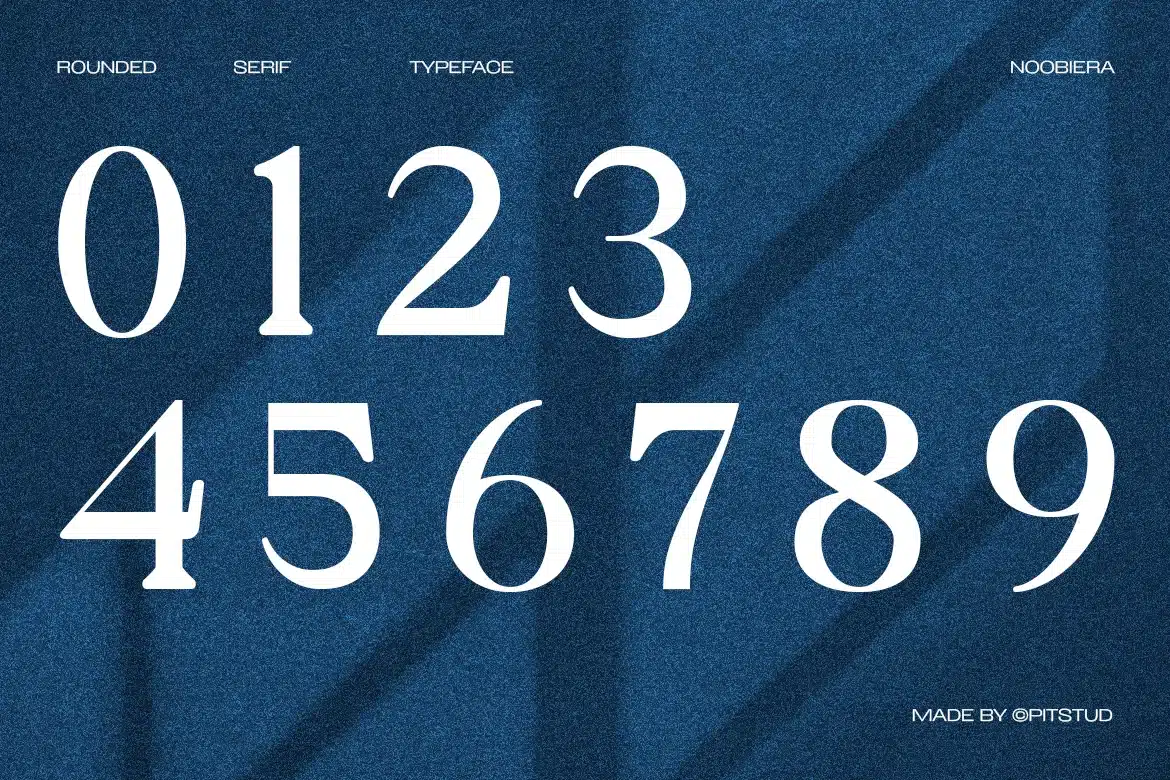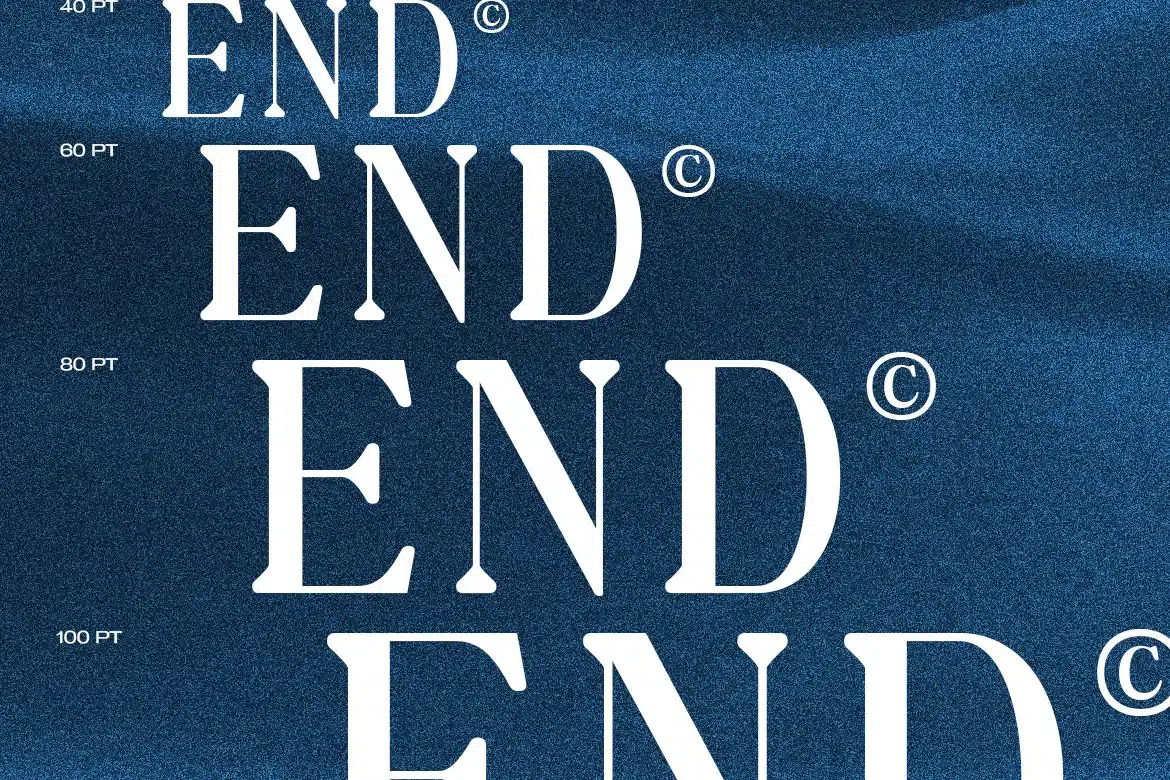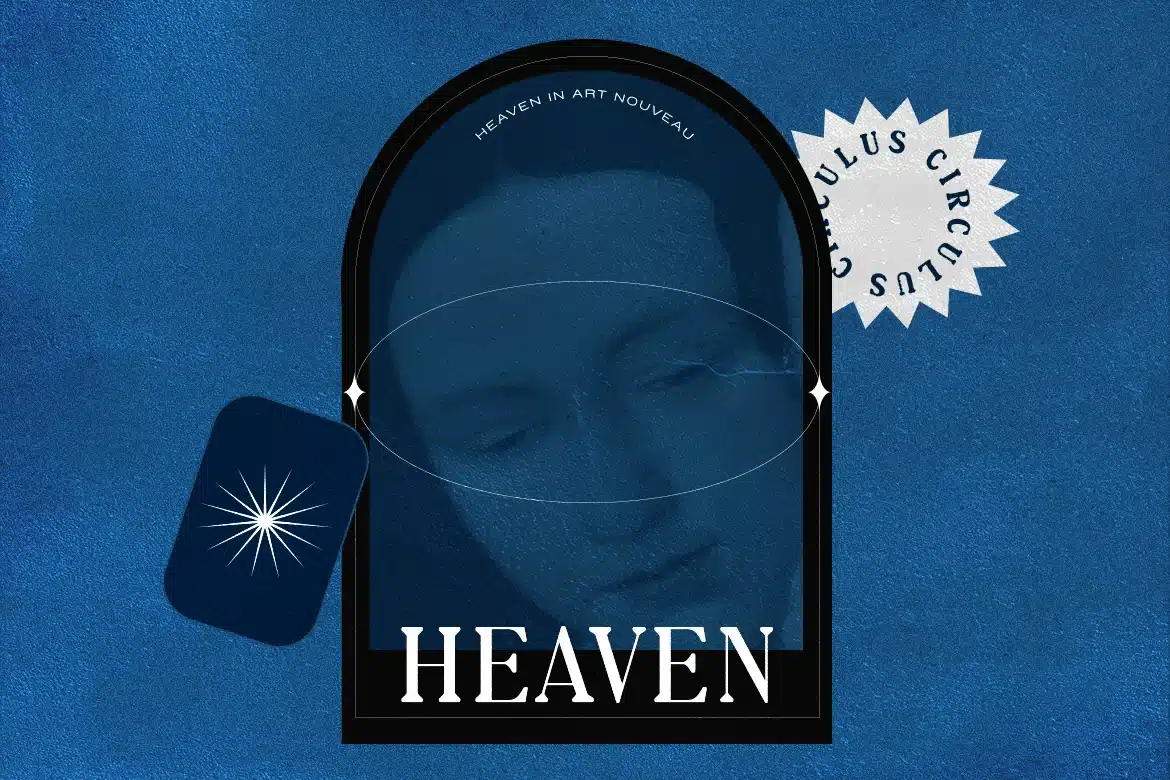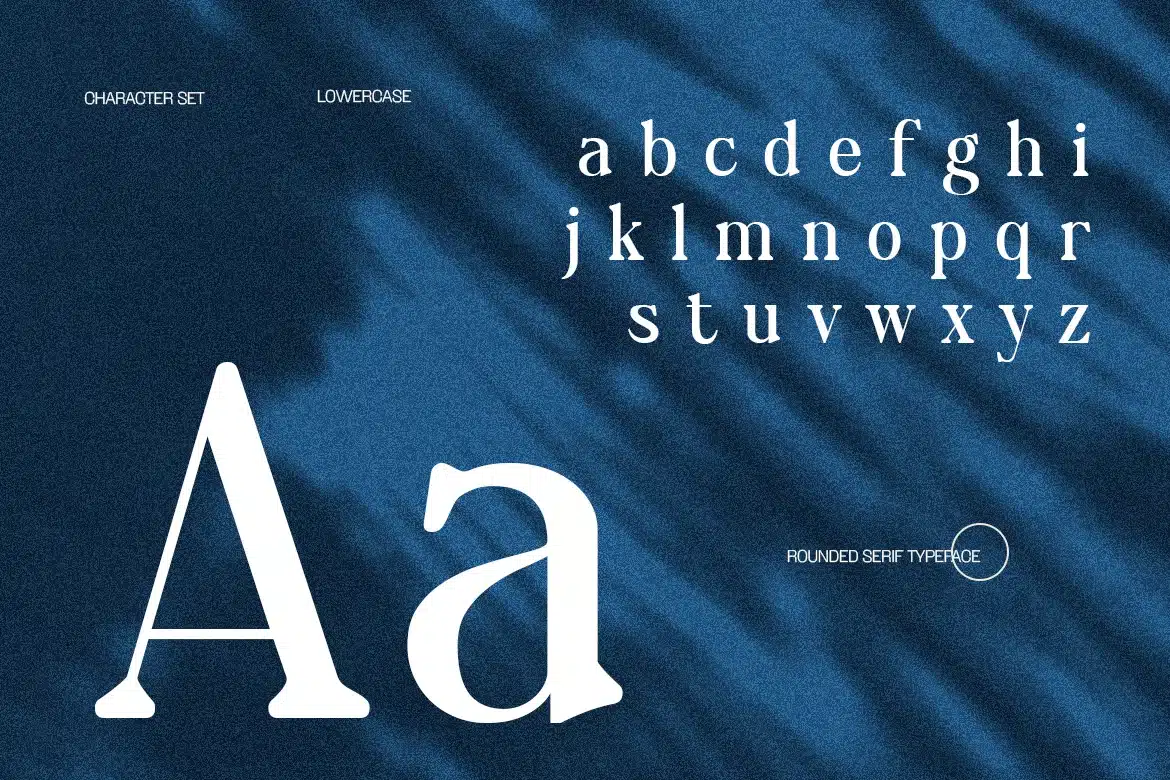
Noobiera – Luxury Branding Font
Noobiera
is a premium luxury branding font designed to bring elegant sophistication to your branding and design projects. Crafted with modern serif elegance, this font offers a sleek, stylish, and professional touch for logos, marketing materials, packaging, and digital applications.
Whether you’re working on a high-end brand, fashion label, or editorial magazine, Noobiera will give your design a refined edge. It’s ideal for use in luxury logos, beauty packaging, website headers, and upscale event invitations.
Font Features:
- Clear and Versatile Design: Offers easy readability with a modern style that stands out in both digital and print mediums.
- Complete Character Set: Uppercase and lowercase characters, numbers, punctuation, and symbols.
- OpenType Features: Access alternates, ligatures, and unique stylistic sets to customize your design.
- Multilingual Support: Includes support for multiple languages, including English, Spanish, French, German, Portuguese.
Noobiera combines classic letterforms and modern curves to create a striking visual impact while maintaining clarity. Whether you are designing for fashion campaigns, editorial covers, or luxury branding, this font adapts to your needs and enhances the visual appeal of your design.
Perfect For:
- Luxury Branding: Enhance your upscale brand identity with sophisticated fonts.
- Fashion Editorials: Perfect for high-impact magazine headlines and covers.
- Corporate Identity: Bring professionalism to your corporate designs.
- Beauty & Cosmetics: Ideal for stylish product packaging and branding.
- Event Invitations: Create elegant, eye-catching event materials.